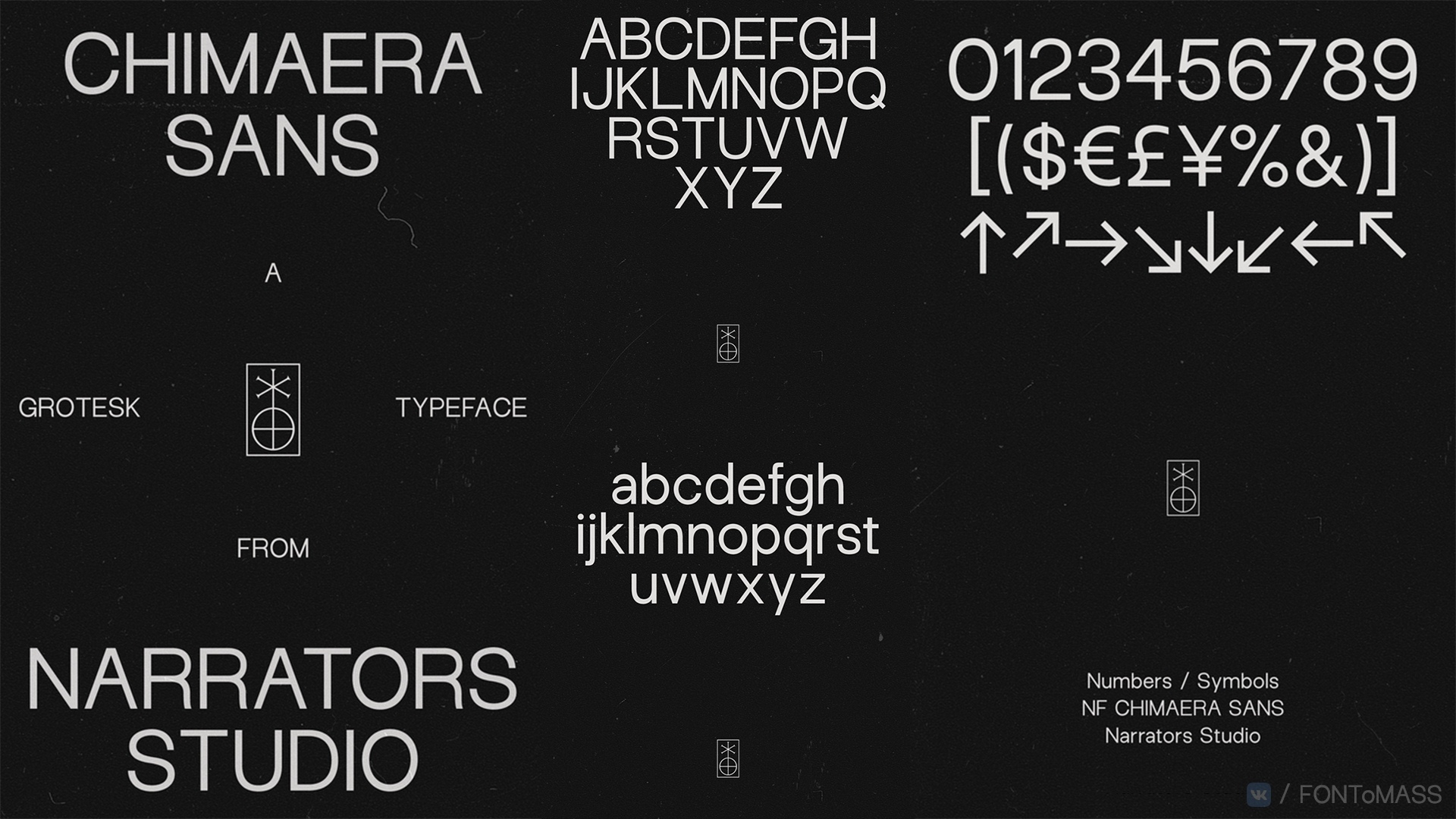
NF Chimaera Sans Font
This NF Chimaera Sans Font is perfect for mythological gaming branding, fantasy entertainment graphics, legendary creature designs, mystical product packaging, epic storytelling materials, hybrid technology logos, transformative business communications, magical event promotions, mythical art gallery exhibitions, and extraordinary brand identity systems.
What makes this NF Chimaera Sans Font exciting is its legendary fusion that captures the mythical power and transformative nature of the legendary chimera creature. The font features hybrid letterforms with mystical characteristics that convey magical transformation, legendary strength, and extraordinary versatility. Its mythological character and transformative design make it ideal for brands seeking to communicate legendary excellence, magical innovation, and extraordinary capabilities in fantasy and creative markets.
The NF Chimaera Sans Font family includes light, regular, medium, and bold weights with mythical alternates, legendary variants, and transformative flourishes. This comprehensive mythological font family provides designers with extraordinary typographic tools to create legendary compositions while maintaining the mystical character essential for fantasy gaming and creative brand communications.
Gaming companies and fantasy brands consistently choose NF Chimaera Sans Font Free Download for projects requiring mythological authenticity and legendary appeal. This font's distinctive mystical character perfectly captures the magical transformation and extraordinary power that resonate with audiences who appreciate fantasy gaming, mythological storytelling, and brands that embody legendary creativity.
The transformative construction of NF Chimaera Sans Font showcases powerfully designed letterforms with mythical proportions that ensure exceptional legendary appeal across all fantasy applications. Its extraordinary appearance and mystical character create memorable impressions while maintaining the readability necessary for effective fantasy communication and gaming materials.
Professional designers appreciate how NF Chimaera Sans Font brings immediate mythological authority and legendary presence to brand communications. The font's chimera nature allows organizations to communicate extraordinary capabilities and magical innovation while maintaining the professional quality necessary for effective positioning in fantasy entertainment and creative technology markets.
The legendary appeal of NF Chimaera Sans Font makes it particularly effective for brands emphasizing mythological power, transformative capabilities, and extraordinary innovation. Its mystical character resonates strongly with audiences who appreciate fantasy storytelling, legendary gaming experiences, and brands that represent magical transformation and extraordinary creative achievement.
Whether developing branding for fantasy gaming studios or creating materials for mythological entertainment properties, NF Chimaera Sans Font Free Download provides the legendary typographic foundation that mythical brands need to communicate their extraordinary power, transformative innovation, and the magical excellence that defines legendary fantasy entertainment and mystical creative achievement.